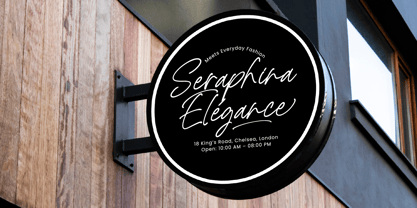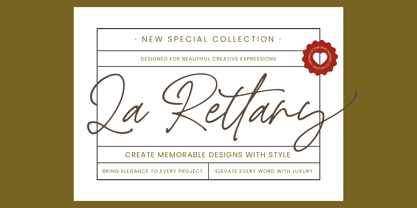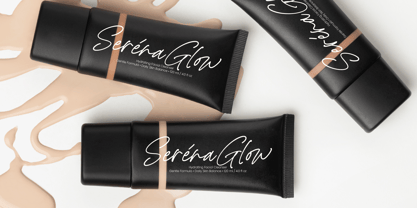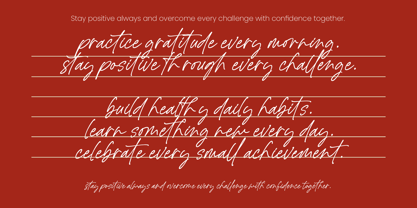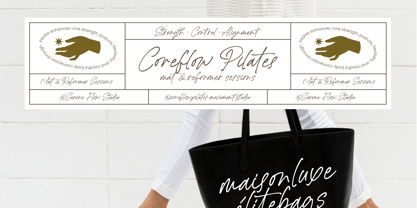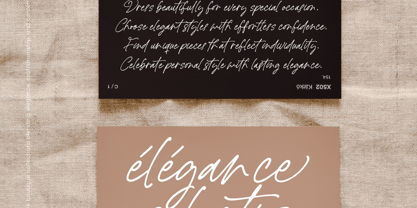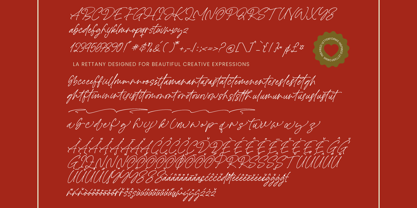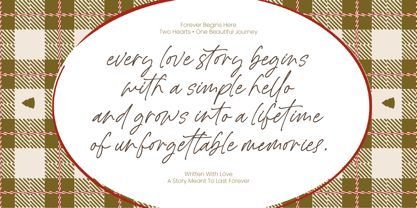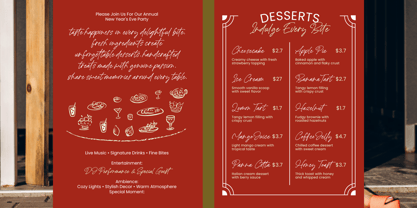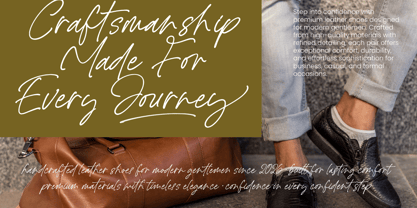
La Rettany
by Letterena Studios
The La Rettany Font Family was designed by Heru Utama Putra and published by Letterena Studios. La Rettany contains 2 styles and family package options. More about this family
La Rettany - Luxury Handwritten Font
Elevate your brand's visual identity with unparalleled grace and sophisticated charm. La Rettany - Luxury Handwritten Font is a masterfully crafted typeface designed to provide a bespoke quality to every design. With its fluid strokes and monolinear elegance, it captures the essence of a high-fashion signature, making it an essential tool for designers seeking to convey exclusivity and premium craftsmanship in their digital and print media.